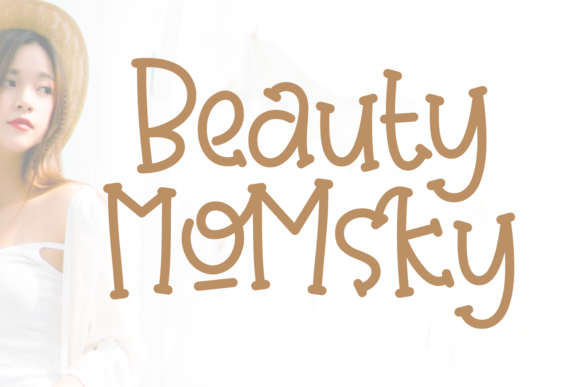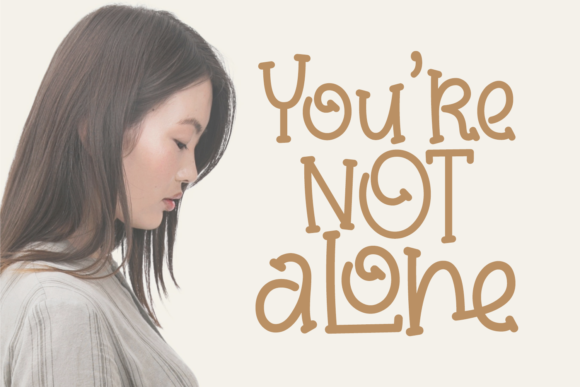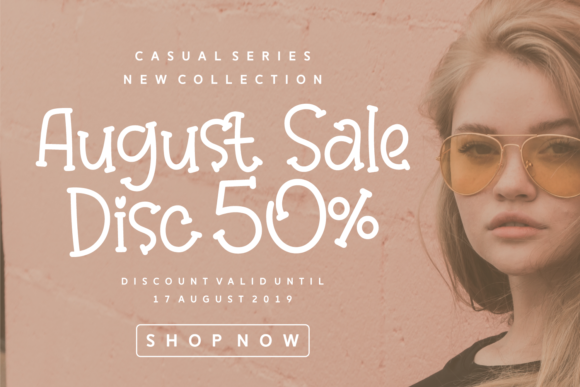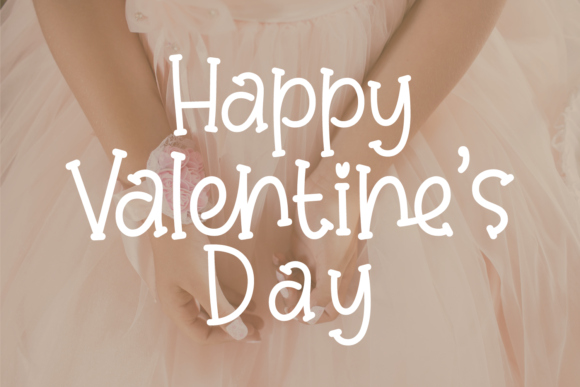
Beauty Momsky Font
About Beauty Momsky Font
Beauty Momsky is a cute and whimsical handwritten font with a bouncy baseline. Get inspired by its whimsical feel!